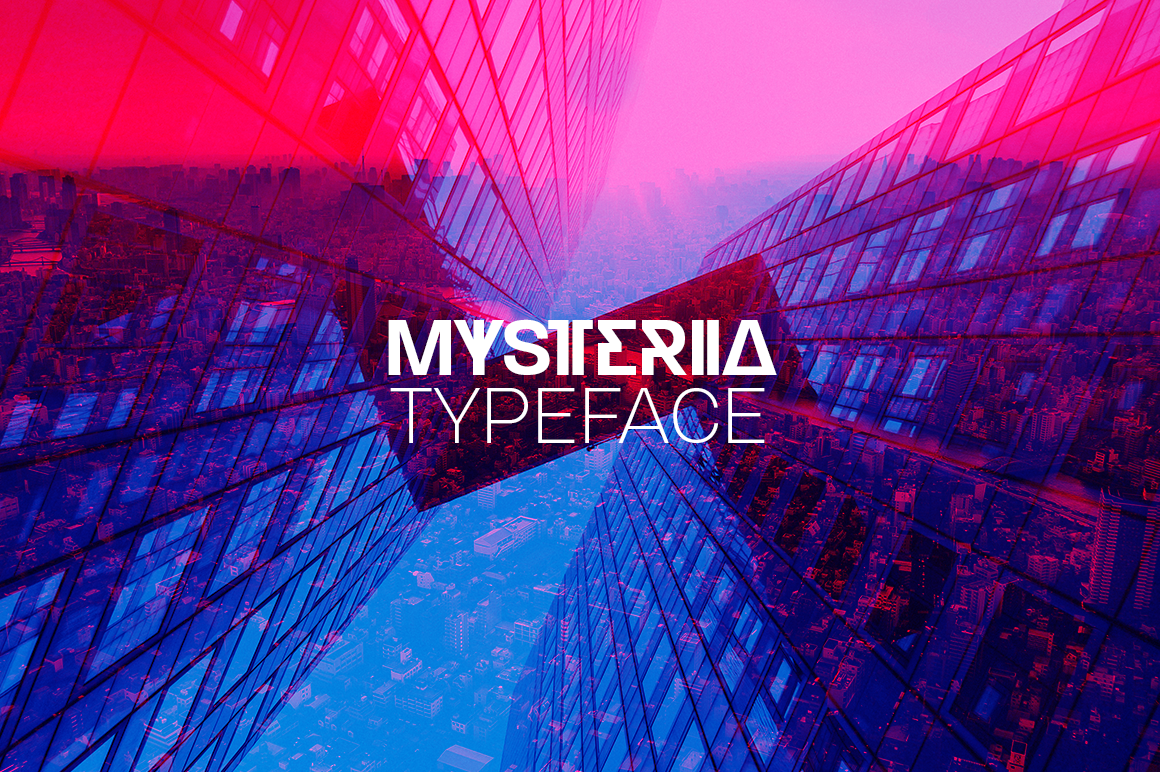
Mysteria Font Family
Stick out a mile with the Mysteria typeface and catch everyone's eye. Using a mix of its two weights helps to create stunning messages. Mysteria’s one-of-a-kind eccentric design of a display face can easily be combined with the matching body text family Gerlach Sans.